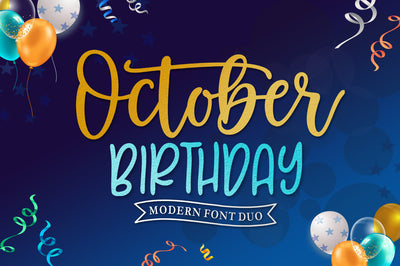
October Birthday | Font Duo
October Birthday Script and Sans is a beautiful and romantic writing font. Looks amazing on birthday cards or wedding invitations, thank you cards, quotes, logos, business cards and other designs.
This font includes OpenType features with alternative styles, ligatures, and multiple language support.